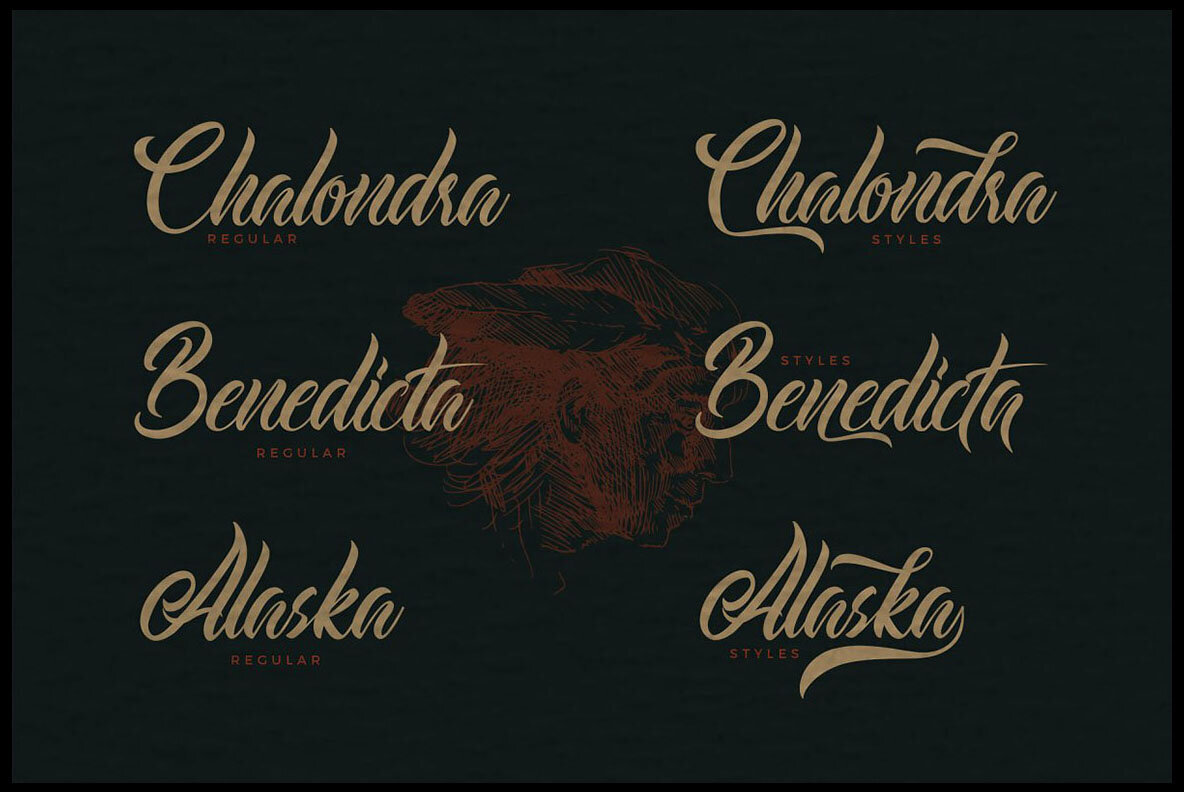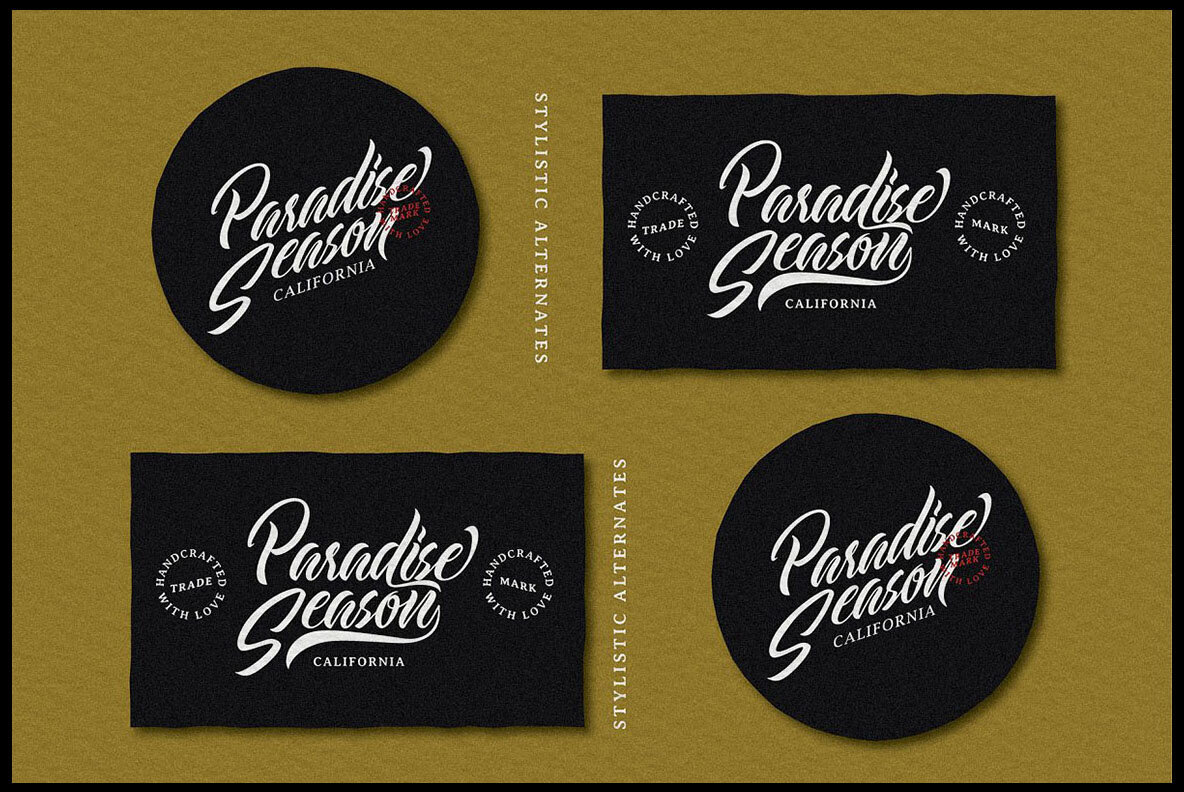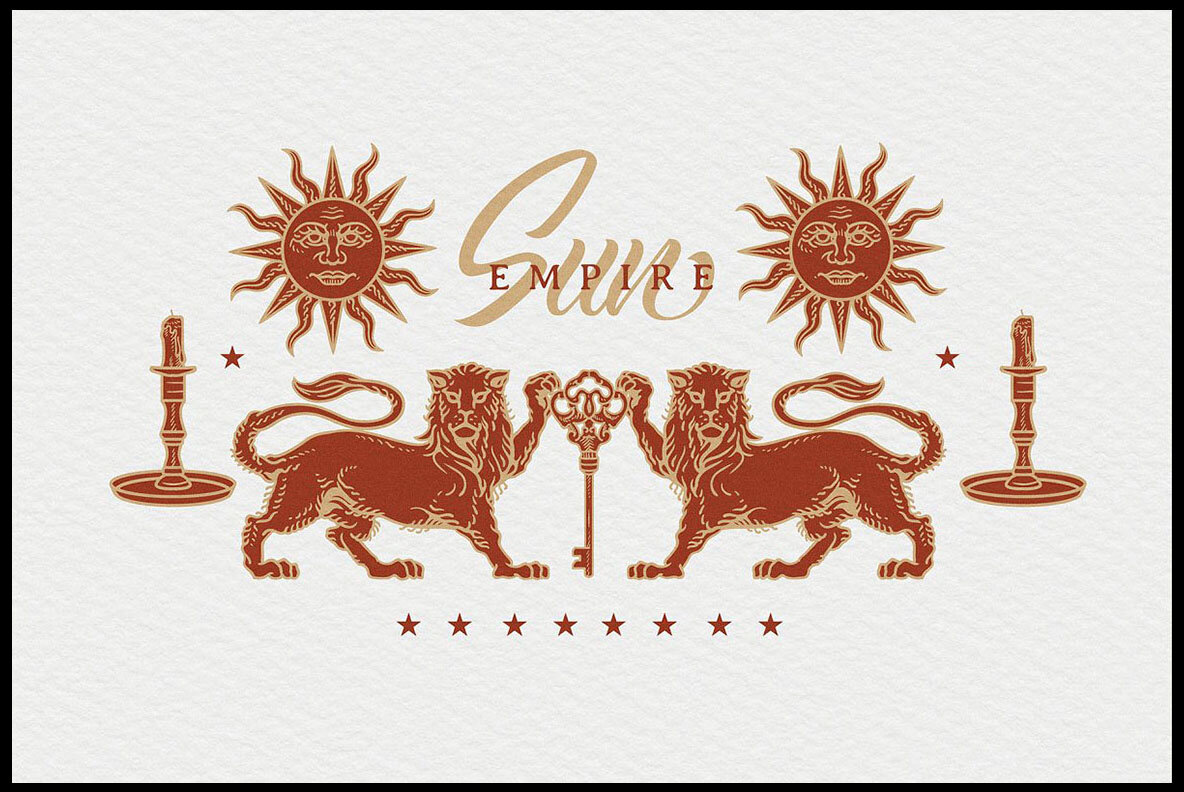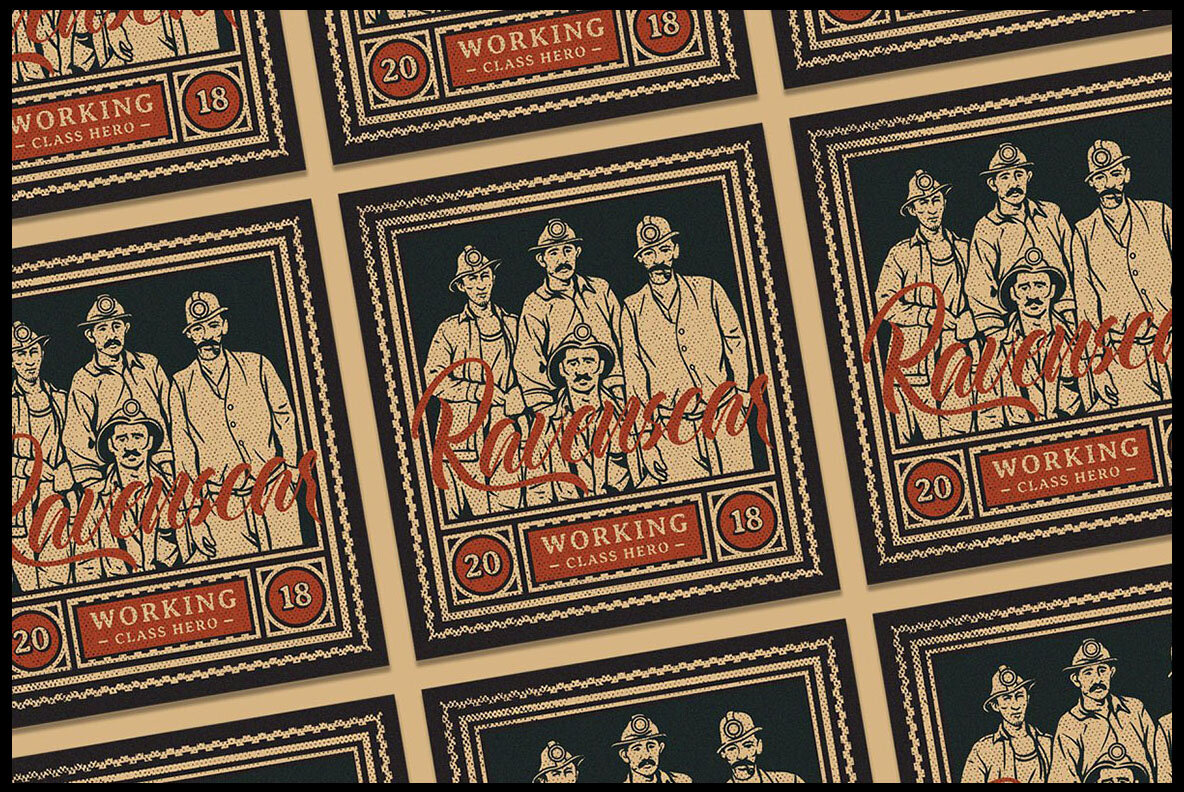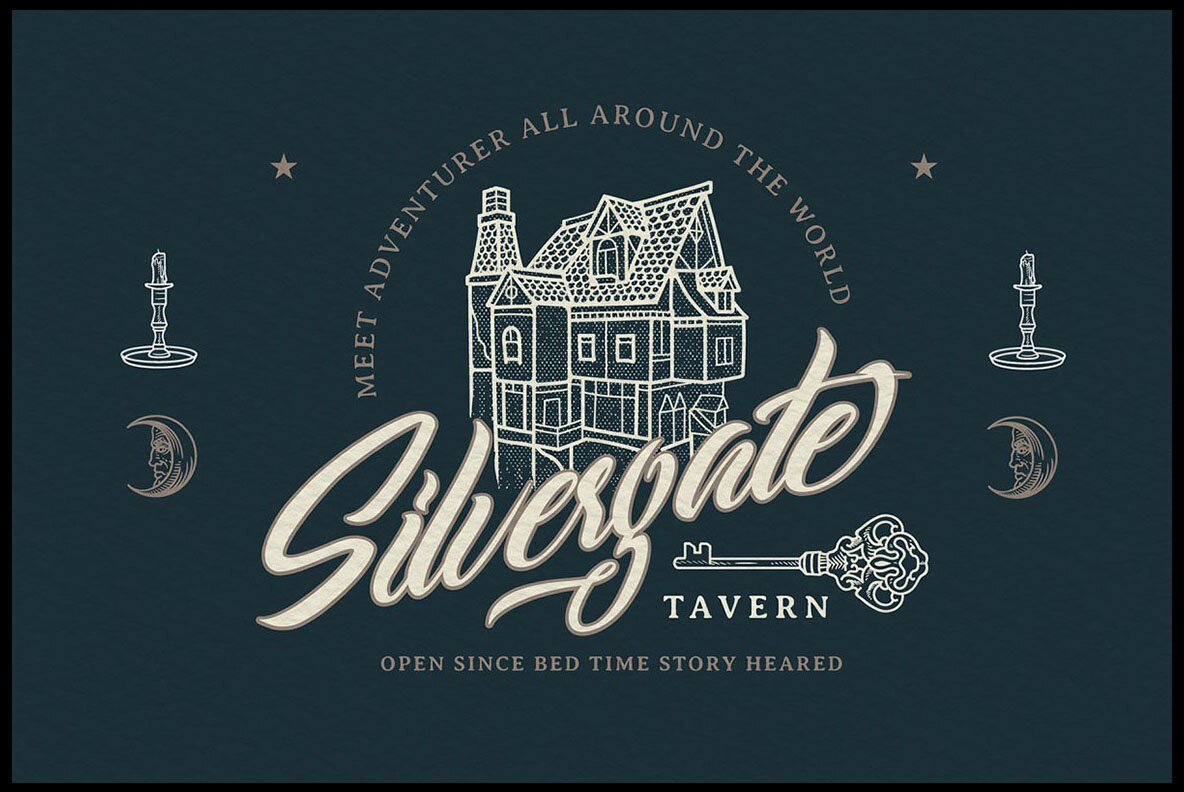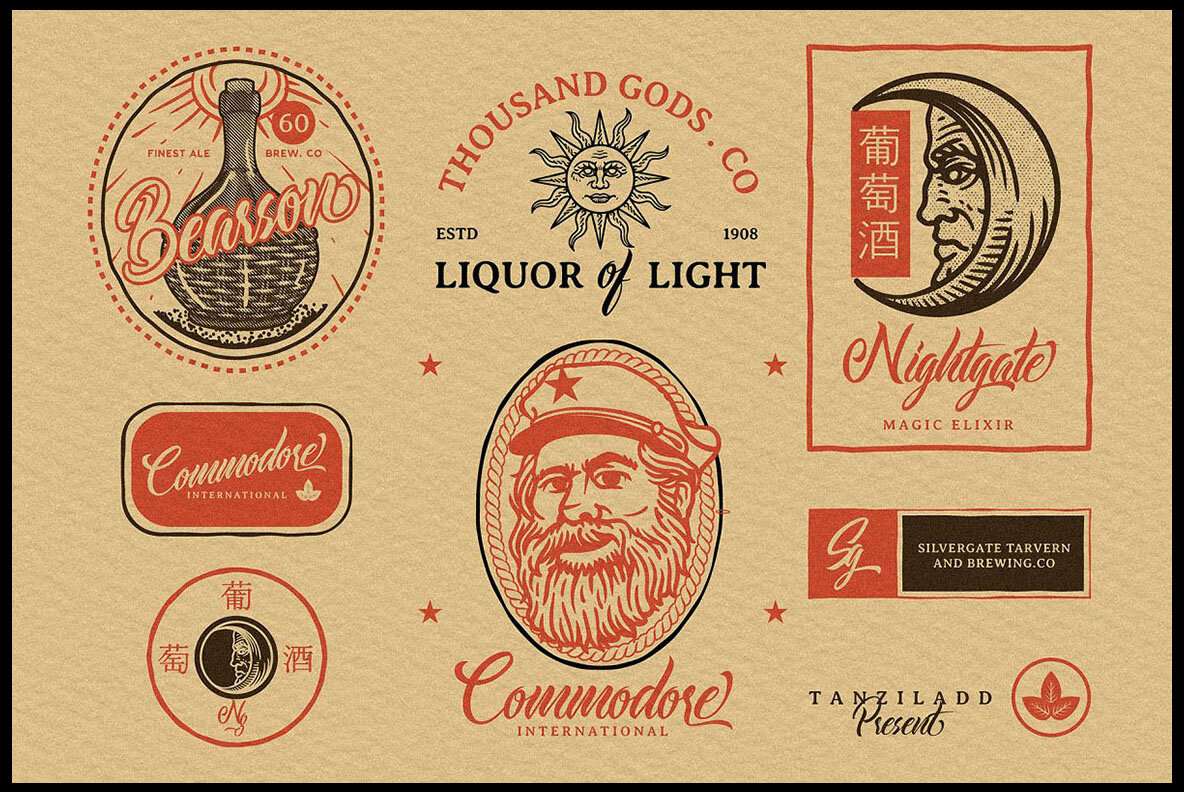
Windpeak Font
Script font that is inspired by vintage decorative letters, advertisments or cards. With decorative vintage style and lot of swashes & alternates you can create realistic headers. It works beautifully for any branding and advertising. You'll find a lot of alternate characters, ligatures and multilanguage characters in this elegant & decorative script font. Comes with swash font with some cool swashes - great for your new logos or headers.